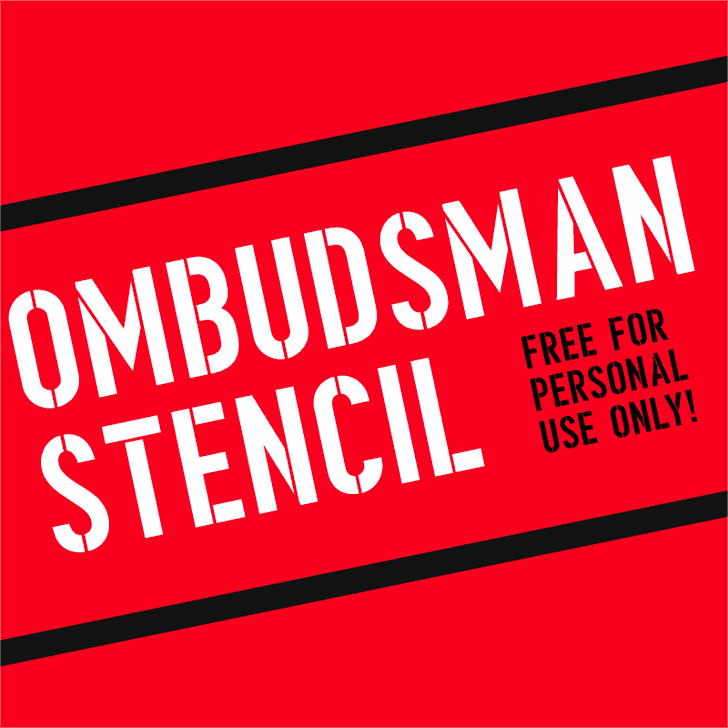
Free Ombudsman Stencil Font
Take a look at this eye-watering free ombudsman stencil font. Font Space has created this amazing and beautiful font. This is absolutely fancy font so you can easily make world-class designs.